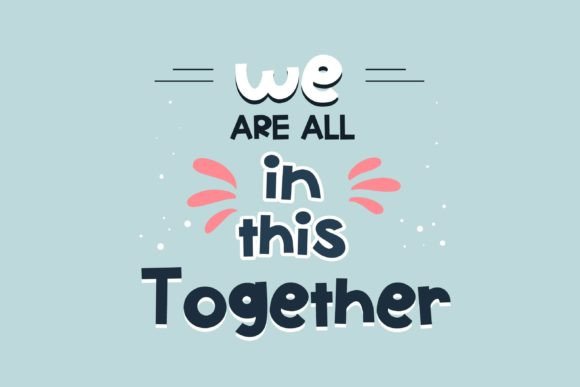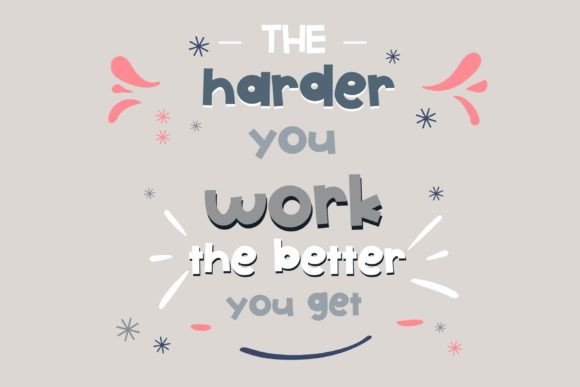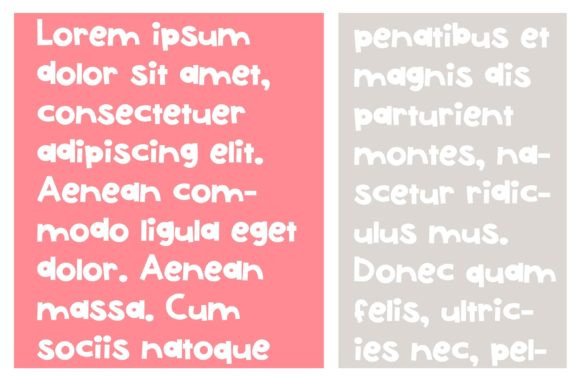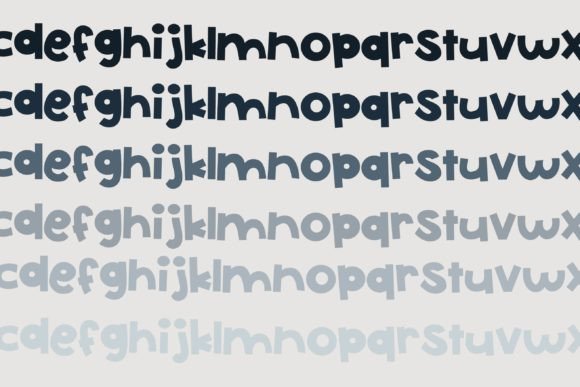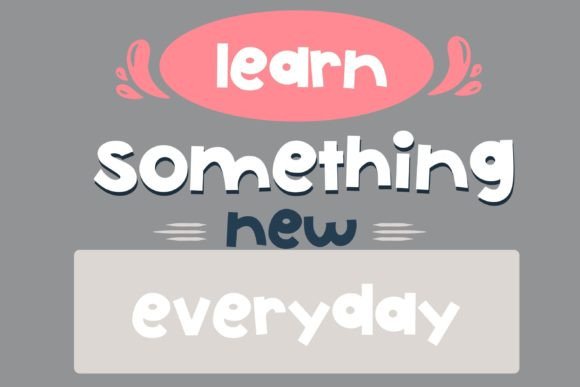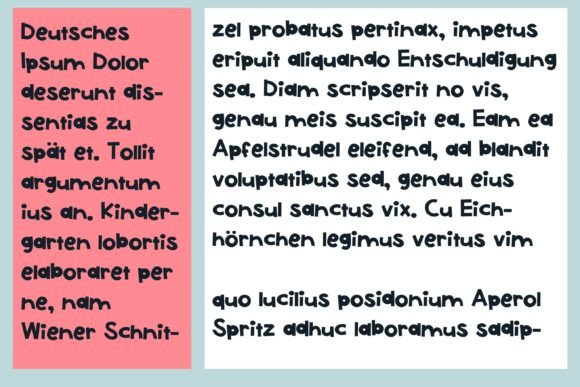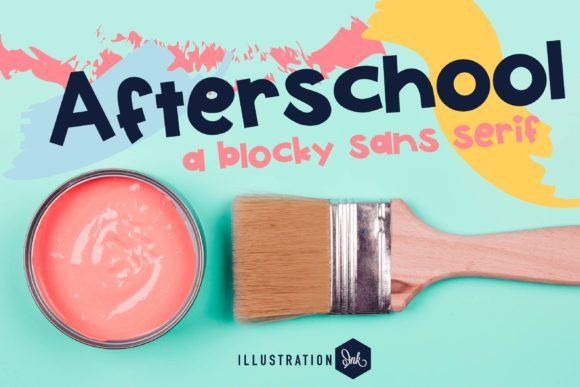
Afterschool Font: Adding a Joyful Touch to Your Designs
Are you tired of using the same old fonts in your designs? Do you want to add a playful and creative touch to your projects? Look no further than the Afterschool Font! This blocky, silly, and very crafty handwritten font is sure to bring a smile to your face and make your designs stand out.
What is Afterschool Font?
Afterschool Font is a unique and charming font that is perfect for designers, crafters, and anyone looking to add a personal touch to their projects. With its blocky and handwritten style, this font is sure to add a playful and whimsical feel to any design. Whether you’re working on a DIY project, creating a social media graphic, or designing a logo, Afterschool Font is the perfect choice.
Characteristics of Afterschool Font
So, what makes Afterschool Font so special? Here are just a few of its key characteristics:
- Blocky and playful: Afterschool Font has a fun and playful style that’s perfect for kids and adults alike.
- Handwritten feel: This font has a personal and handwritten feel that’s sure to add a touch of warmth and personality to your designs.
- Crafty and DIY: Afterschool Font is perfect for crafty projects, DIY designs, and handmade creations.
- Highly versatile: This font can be used for a wide range of projects, from social media graphics to logos, posters, and more.
How to Use Afterschool Font
Using Afterschool Font is easy! Here are a few tips for incorporating this font into your designs:
- Pair with bold colors: Afterschool Font looks amazing with bold and bright colors. Try pairing it with a fun color scheme to really make your design pop.
- Use for headings and titles: This font is perfect for headings and titles, where you want to make a big impact.
- Add to DIY projects: Afterschool Font is a great choice for DIY projects, such as handmade cards, gift tags, and more.
- Experiment with different sizes: Don’t be afraid to experiment with different font sizes to add visual interest to your design.
Benefits of Using Afterschool Font
So, why should you choose Afterschool Font for your designs? Here are just a few benefits:
- Adds a playful touch: Afterschool Font is sure to add a playful and whimsical touch to your designs.
- Increases creativity: With its unique and creative style, Afterschool Font can help inspire your creativity and take your designs to the next level.
- Perfect for crafty projects: This font is a great choice for crafty projects, DIY designs, and handmade creations.
- Easily readable: Despite its playful style, Afterschool Font is still highly readable, making it perfect for use in a wide range of designs.
In conclusion, Afterschool Font is a fun, playful, and highly versatile font that’s perfect for designers, crafters, and anyone looking to add a personal touch to their projects. With its blocky and handwritten style, this font is sure to add a joyful touch to your designs and make them stand out. So why not give Afterschool Font a try today and see the difference it can make?